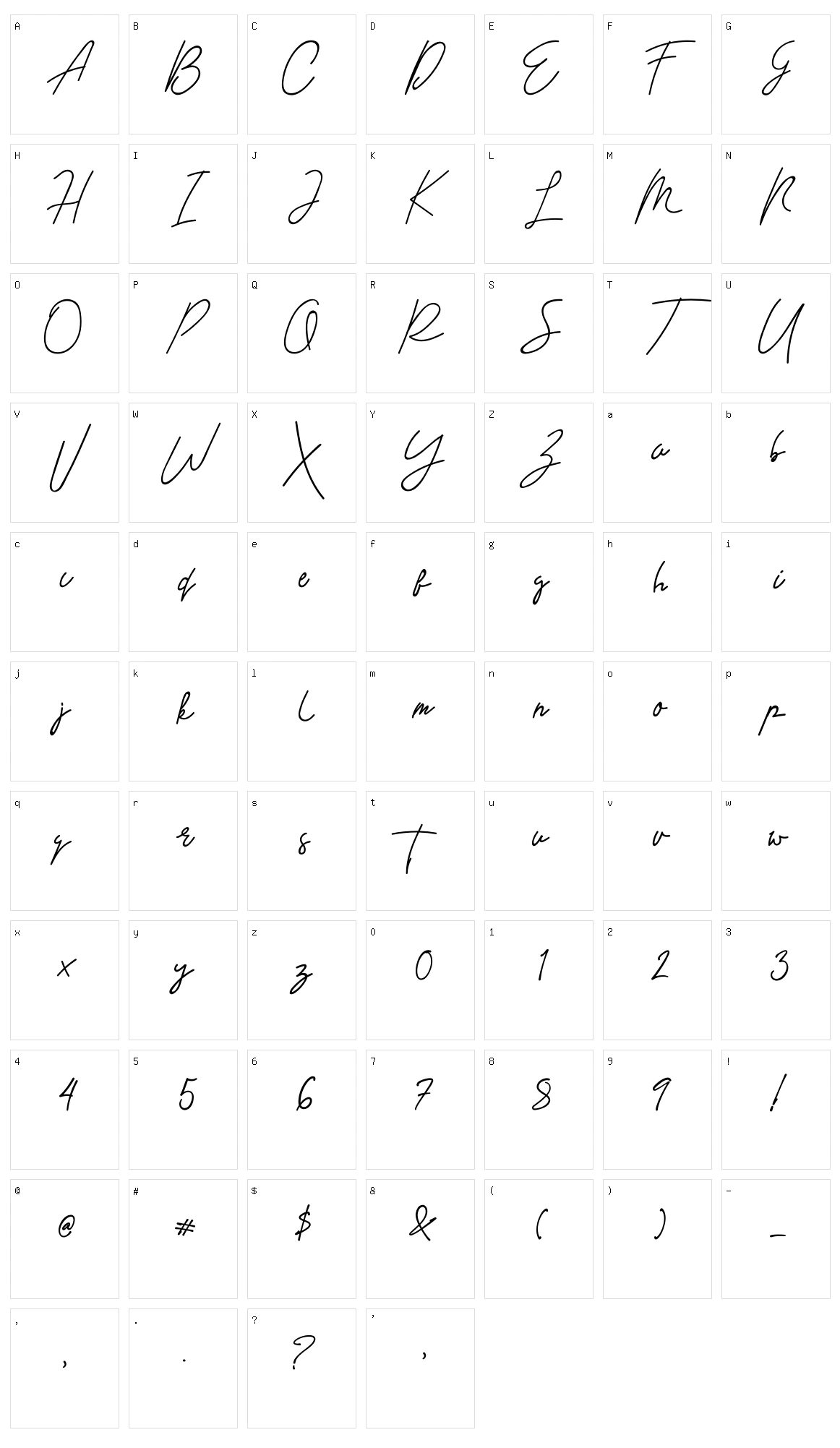
The free font Destiny is carefully designed by Arendx Studio, showcasing a thoughtful balance of creativity and usability and falls under the Script font style. When you download the ZIP file, it contains only 1490.88 KB of font files, making it lightweight and quick to download. Please review the license details below to understand permitted usage and distribution rights. If license information is not available, we recommend using this font for personal projects only or contacting the author directly for commercial usage permissions.